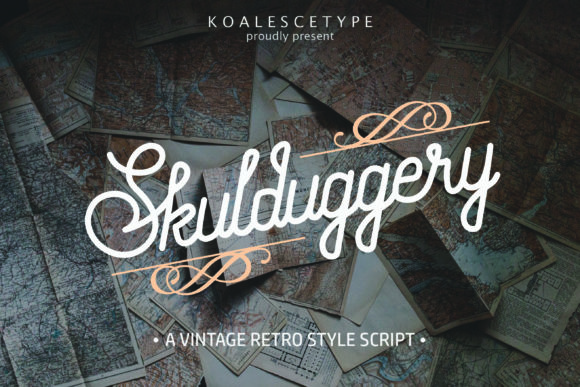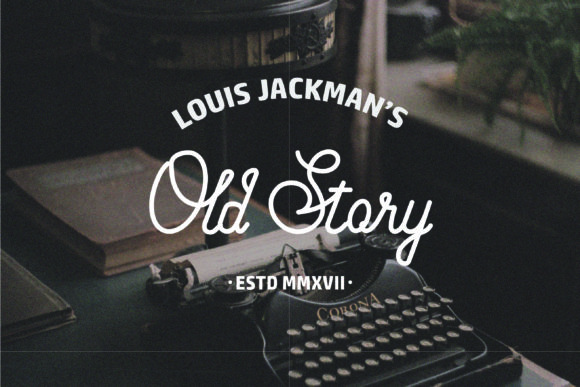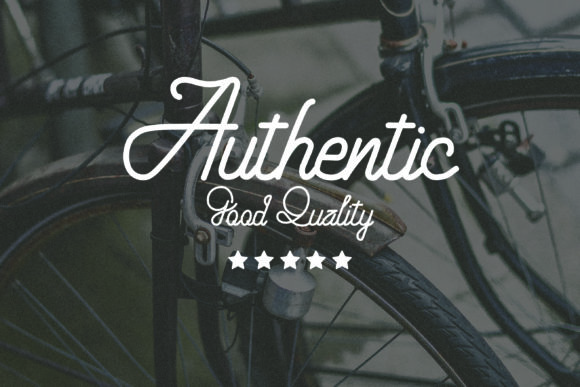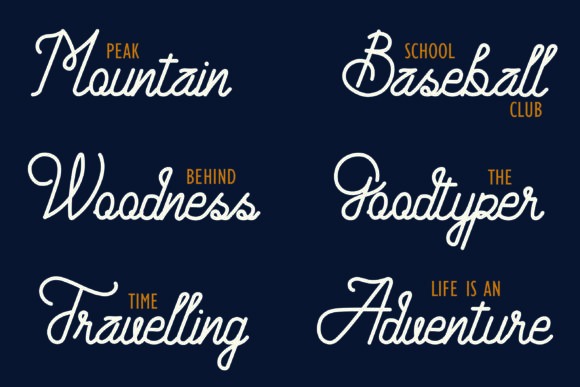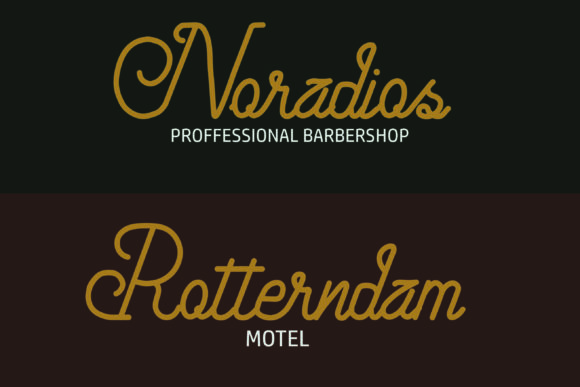
About Skulduggery Font
Skulduggery is a retro styled handwritten font, crafted to give your headlines and logotype projects a stylish touch. This font reads as strong, confident, and dynamic and can add tons of nostalgic character to your designs.